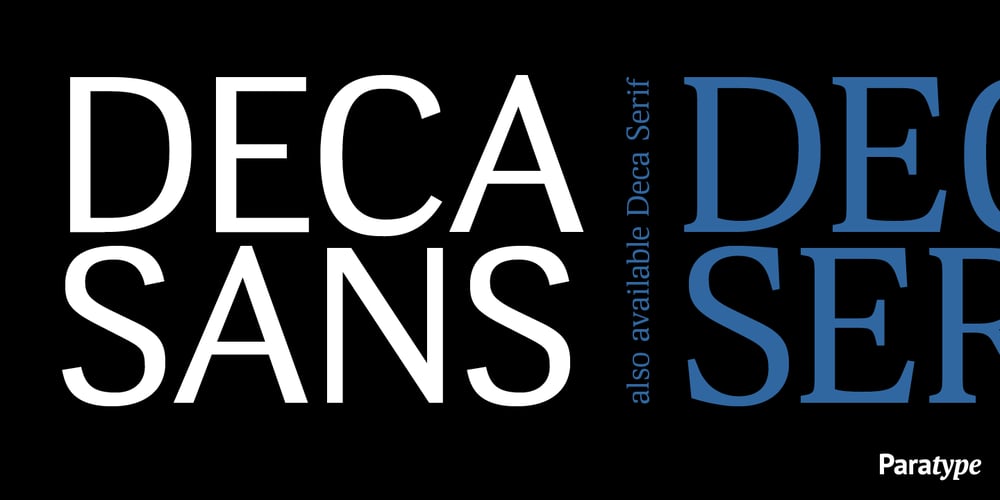
Deca Sans Font Family was designed by Natalia Vasilyeva and published by ParaType. Deca Sans contains 5 styles and family package options. Paratype presents Deca Sans typeface.Deca Sans is part of a superfamily of fonts, which also includes Deca Serif and Deca Serif New. These fonts are designed to provide harmonious integration and versatility across different contexts, from web design to print publications.Deca Sans is a sans-serif font characterized by clean and modern lines, suitable for headlines, logos, and other applications where a contemporary and minimalist look is required.Deca Serif is a classic serif font, ideally suited for long texts such as articles, books, and other print materials. It ensures high readability and creates a sense of tradition and solidity.Deca Serif New is a modern variant of Deca Serif that combines traditional features with an updated and more contemporary design. It is intended for those who want to use a serif font with a more modern style.All these fonts are designed to work together, ensuring consistency and harmony in various design projects.And if you need font files in different formats, or want to test out this font, just drop us a line at info@paratype.net, and we’ll work something out.